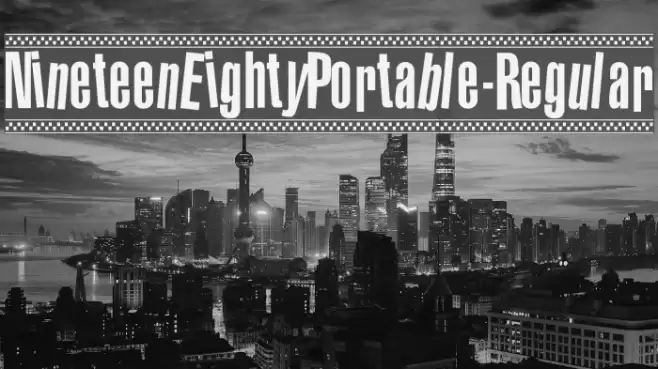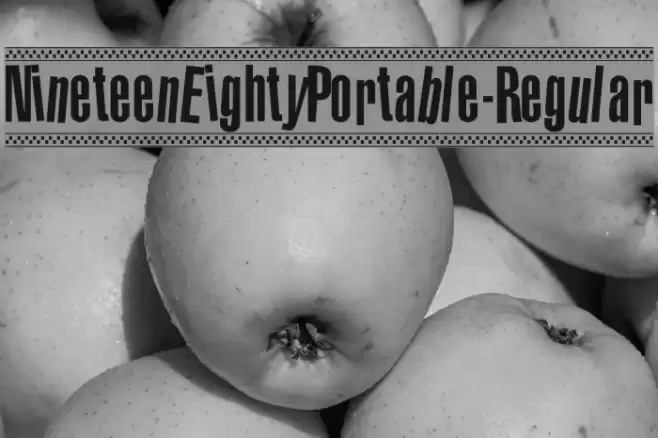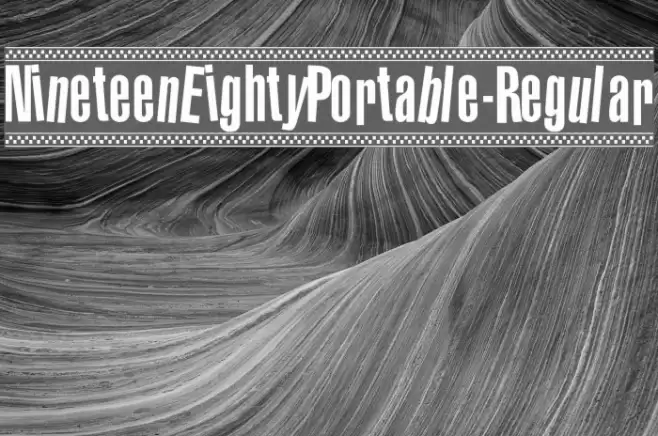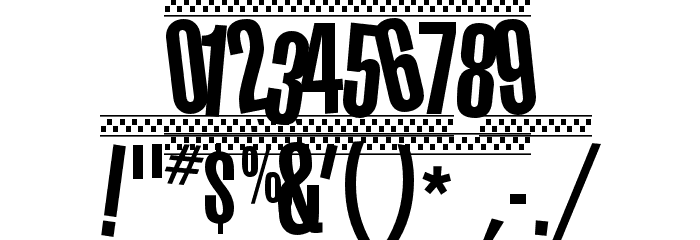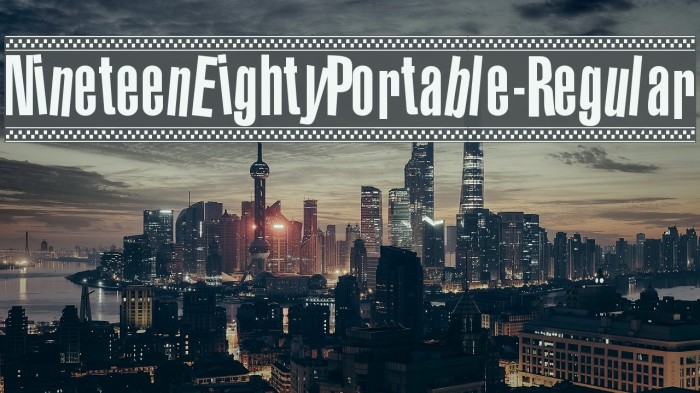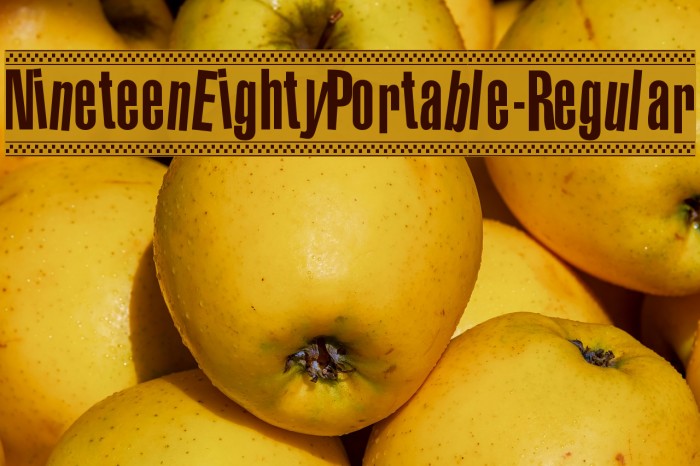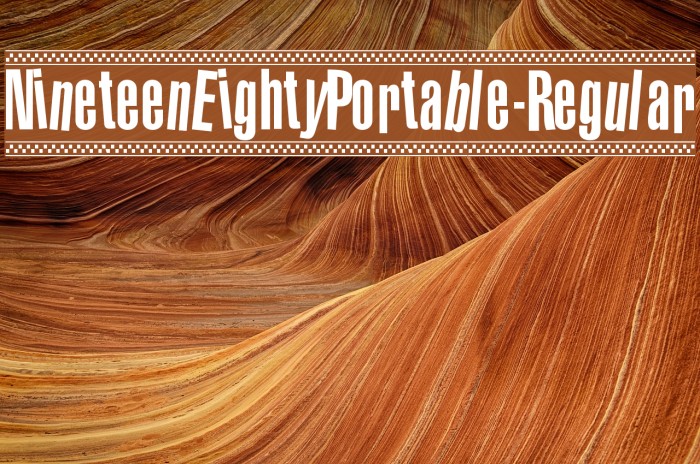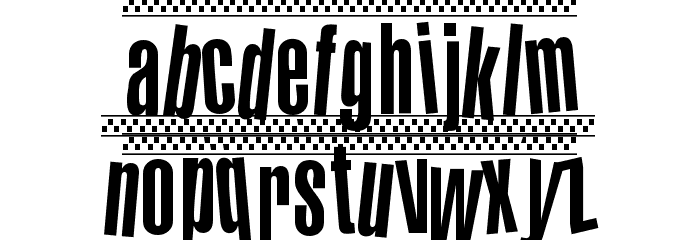
NineteenEightyPortable-Regular Font
NineteenEightyPortable-Regular Description
This font features a bold and dynamic style with a distinct retro flair. The uppercase letters are tall and slightly condensed, giving a sense of strength and presence. The lowercase letters maintain a consistent style, with a playful yet structured appearance. Numbers are bold and clear, ensuring readability. Special characters are well-integrated, matching the overall aesthetic. The font's design is reminiscent of vintage posters and signage, with a modern twist that makes it versatile for various applications.
A bold, retro-inspired font with a modern twist, perfect for impactful designs from Uncategorized fonts.
- Proposed Projects: Ideal for retro-themed posters, branding, headlines, and any design requiring a bold statement.
- Overall Style: Vintage